Choosing from cool futuristic fonts starts with the job your typography must do. Consider the words, their final size, and the mood of the project. The options below are organized to help you compare useful directions before testing candidates in your own layout.
How to evaluate the options
Set the real headline, name, or label in each candidate. Check legibility at the final size, compare the capitals and repeated letters, and leave enough room for decorative details. Use a quieter companion font for long descriptions and other supporting text.
Font picks
Six Sound Font for logos
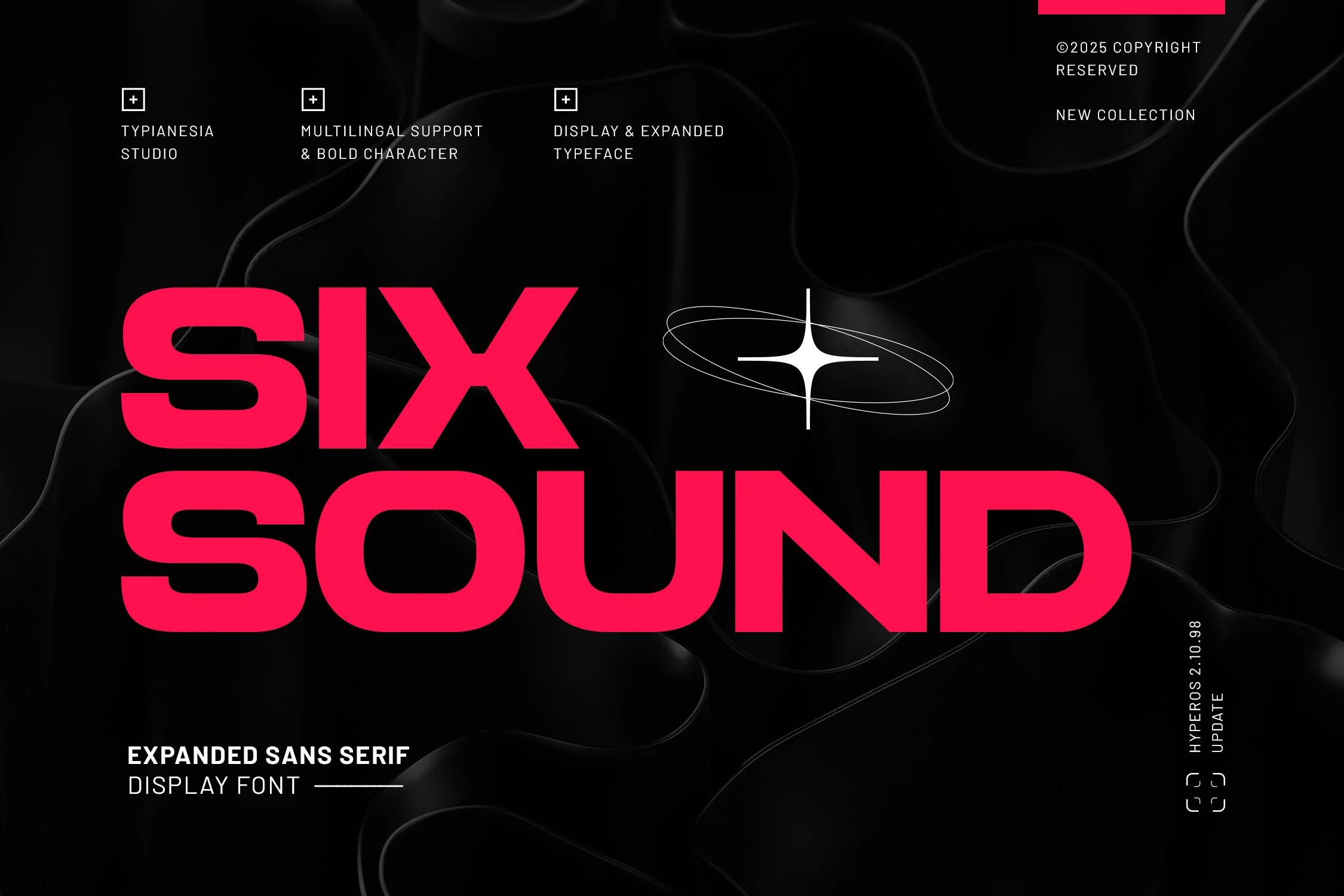
Six Sound Font is worth testing for logos, branding, and display text. Look for rounded letter shapes and geometric construction when comparing it with other options. Try it at both headline and label size to judge its clarity.
Surfume Font for logos
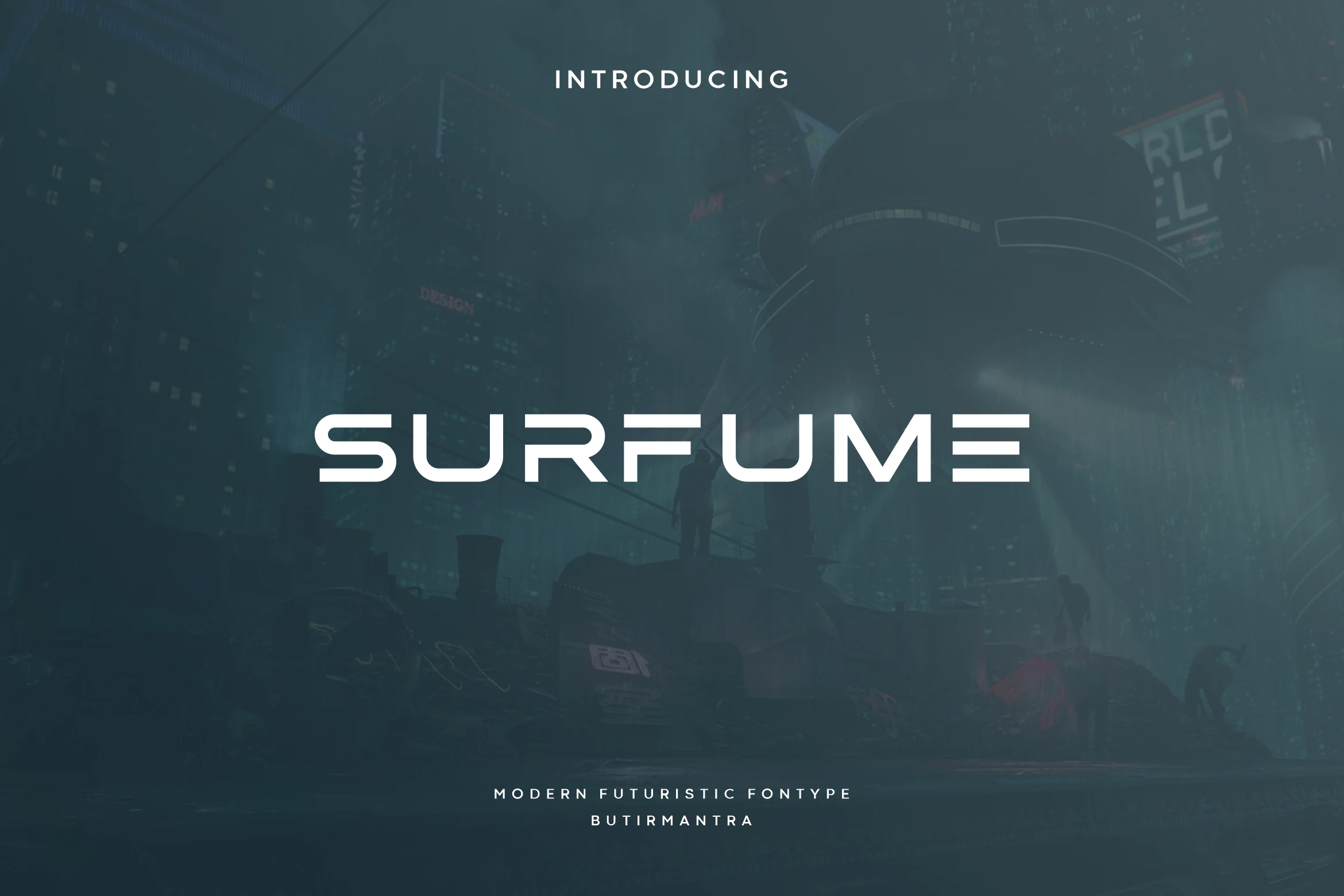
For logos, posters, and product labels, consider Surfume Font. Its design draws on geometric construction and serif details. Check whether repeated shapes make short words feel balanced.
Noffixa Font for branding
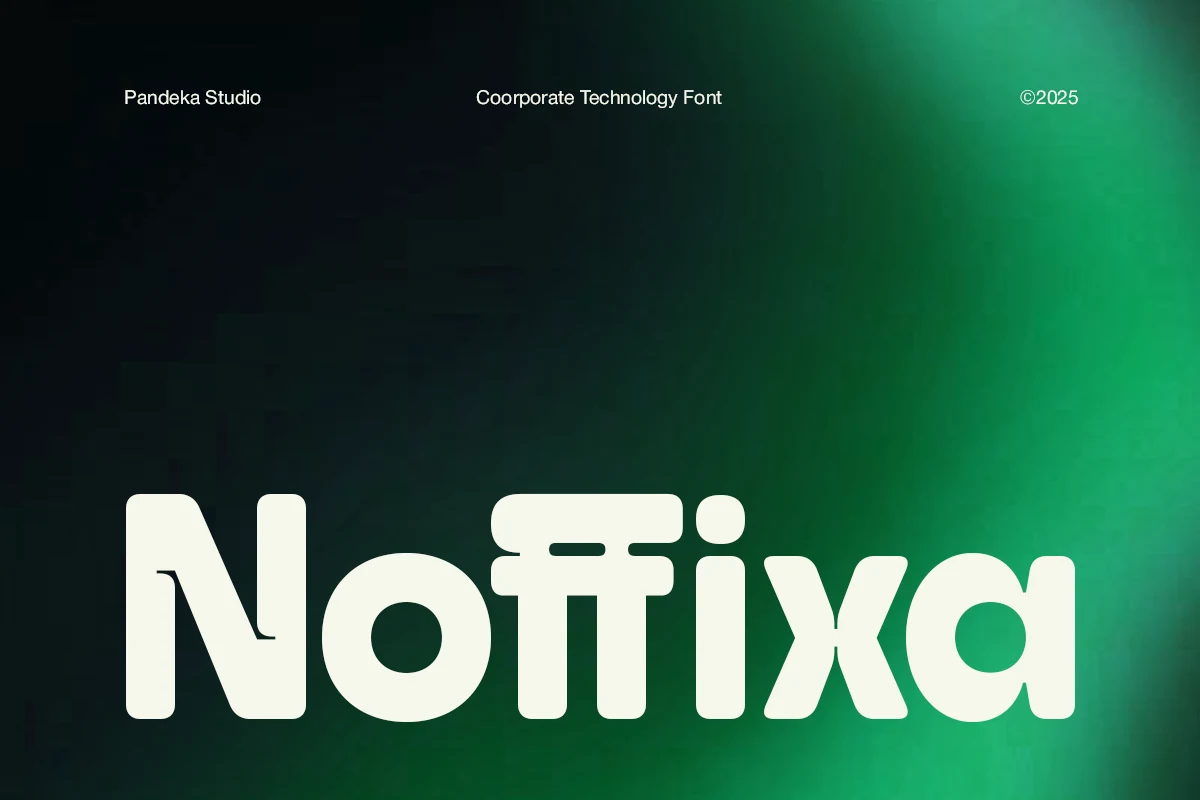
Noffixa Font can anchor branding, logos, and website headers. The main visual cues are rounded letter shapes and geometric construction. Try it at both headline and label size to judge its clarity.
Furion Font for logos
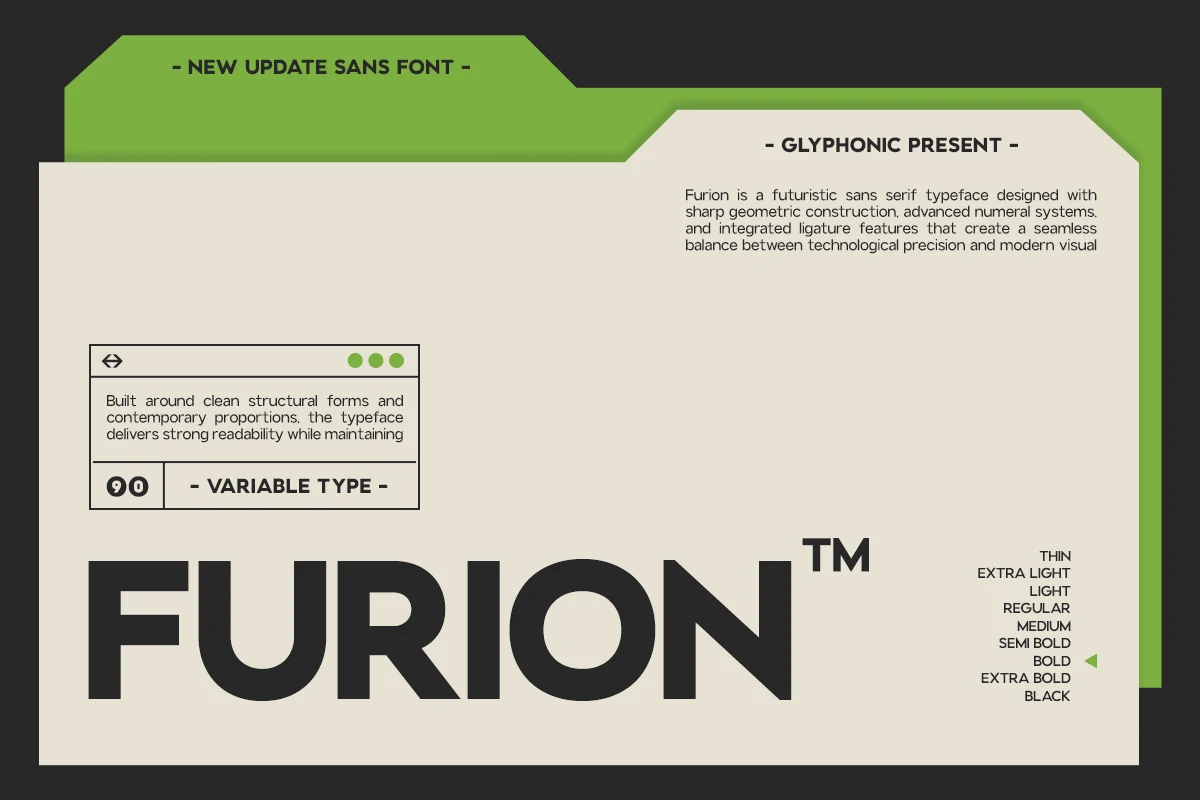
Furion Font is worth testing for logos, branding, and website headers. Look for geometric construction and serif details when comparing it with other options. Check whether repeated shapes make short words feel balanced.
Cenura Font for logos
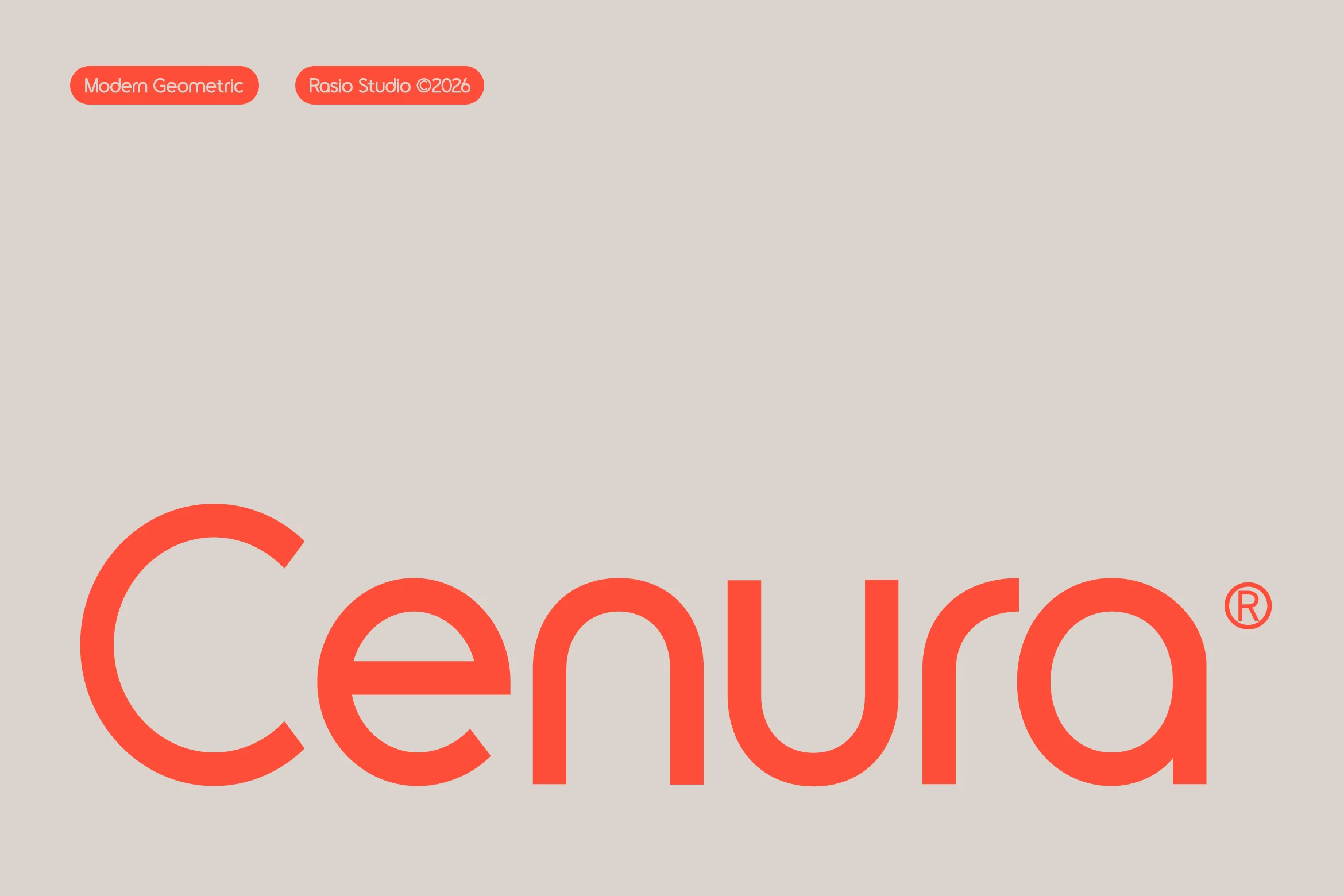
For logos, branding, and website headers, consider Cenura Font. Its design draws on an even, monoline stroke and rounded letter shapes. Test connected letters in the exact words you plan to use.
Ragonte Font for branding
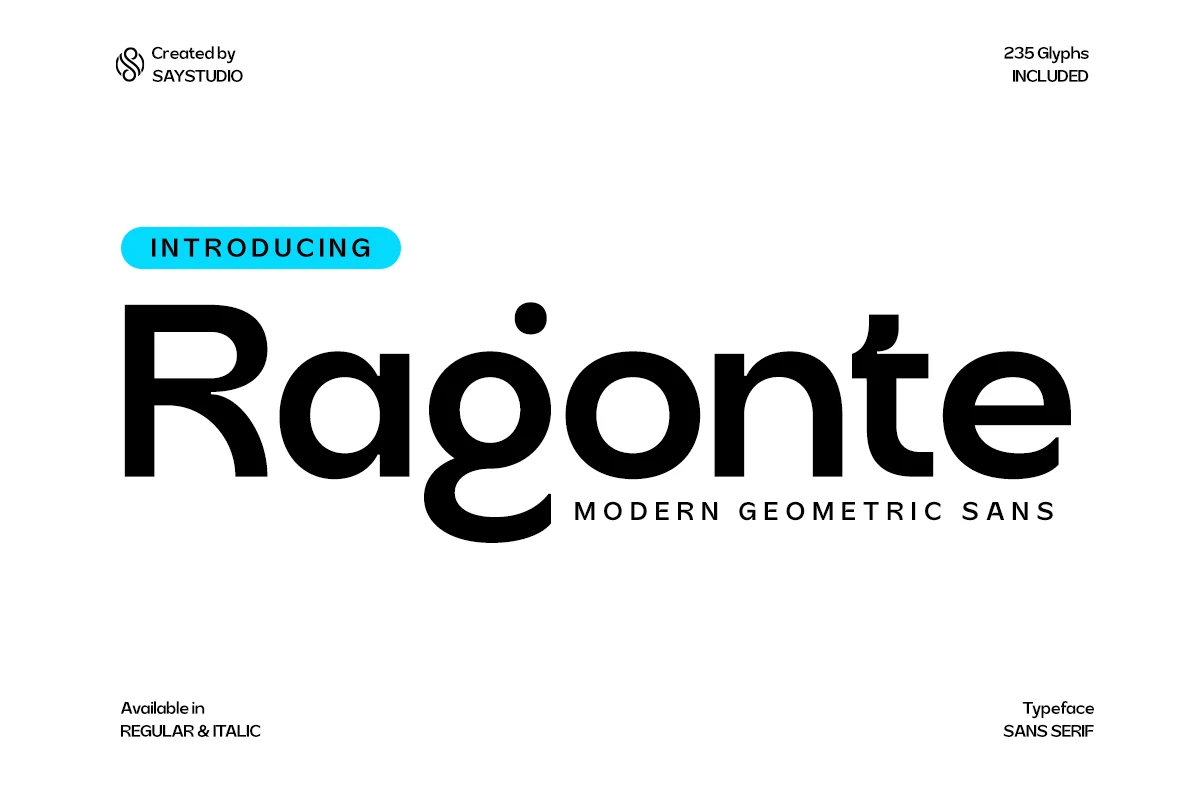
Ragonte Font can anchor branding, website headers, and display text. The main visual cues are geometric construction and display-focused letterforms. Check whether repeated shapes make short words feel balanced.
Konect – Futuristic Tech Sans Serif Font for logos
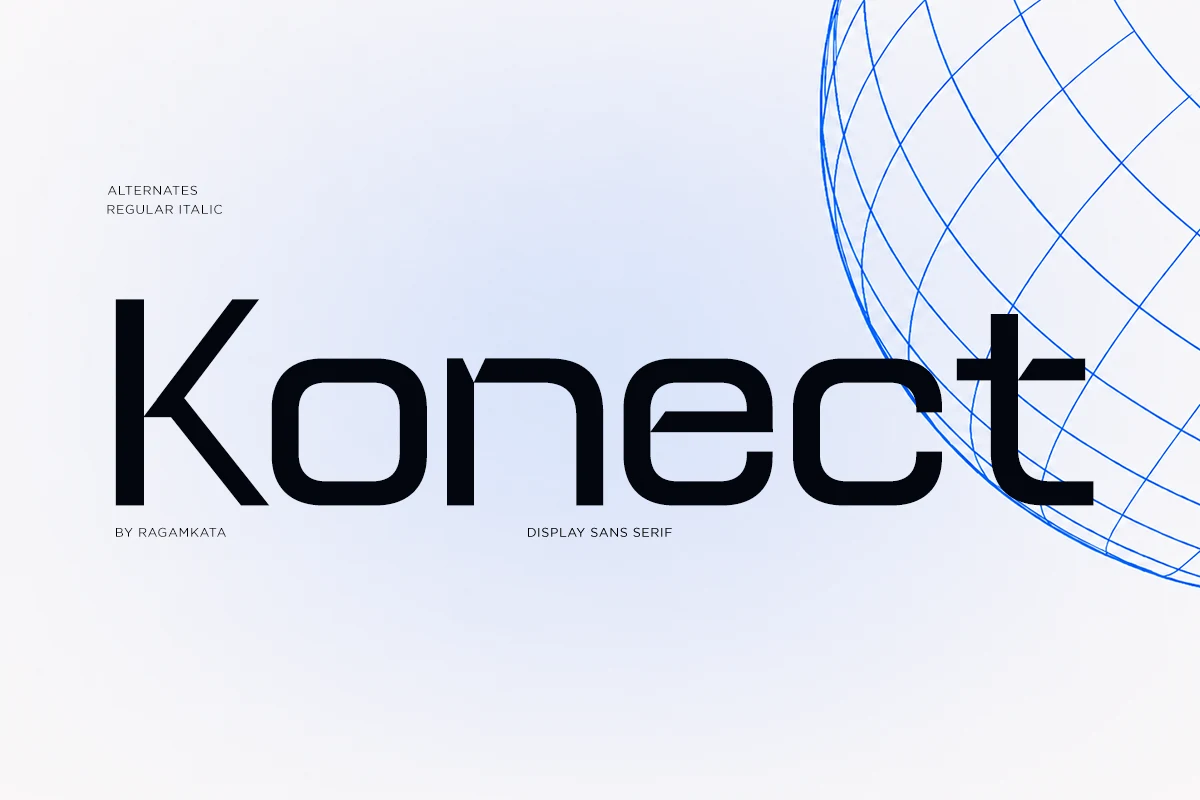
Konect – Futuristic Tech Sans Serif Font is worth testing for logos, branding, and website headers. Look for geometric construction and serif details when comparing it with other options. Check whether repeated shapes make short words feel balanced.
Montreal Font for branding
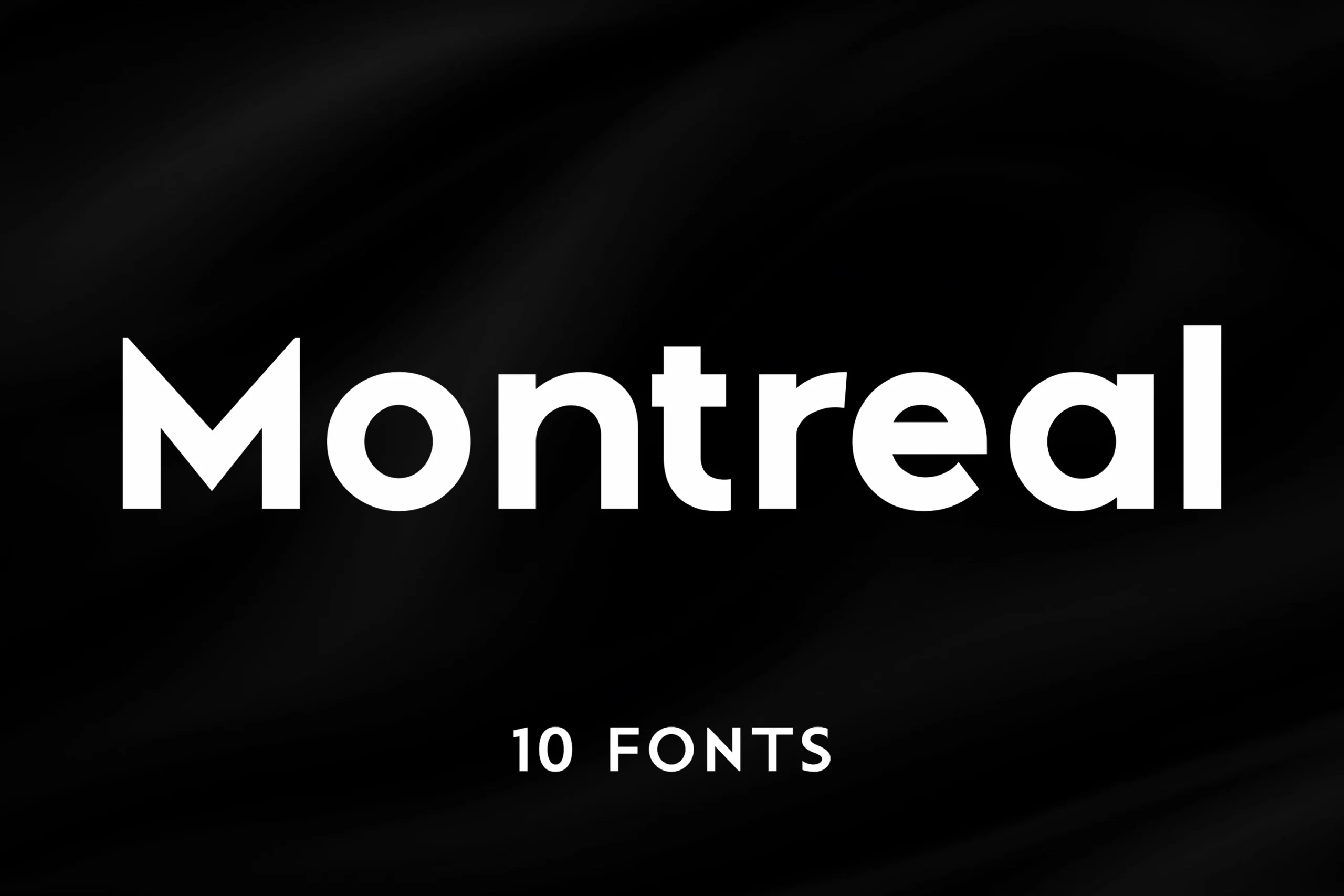
For branding, website headers, and clean designs, consider Montreal Font. Its design draws on geometric construction and serif details. Check whether repeated shapes make short words feel balanced.
Sogea Font for logos
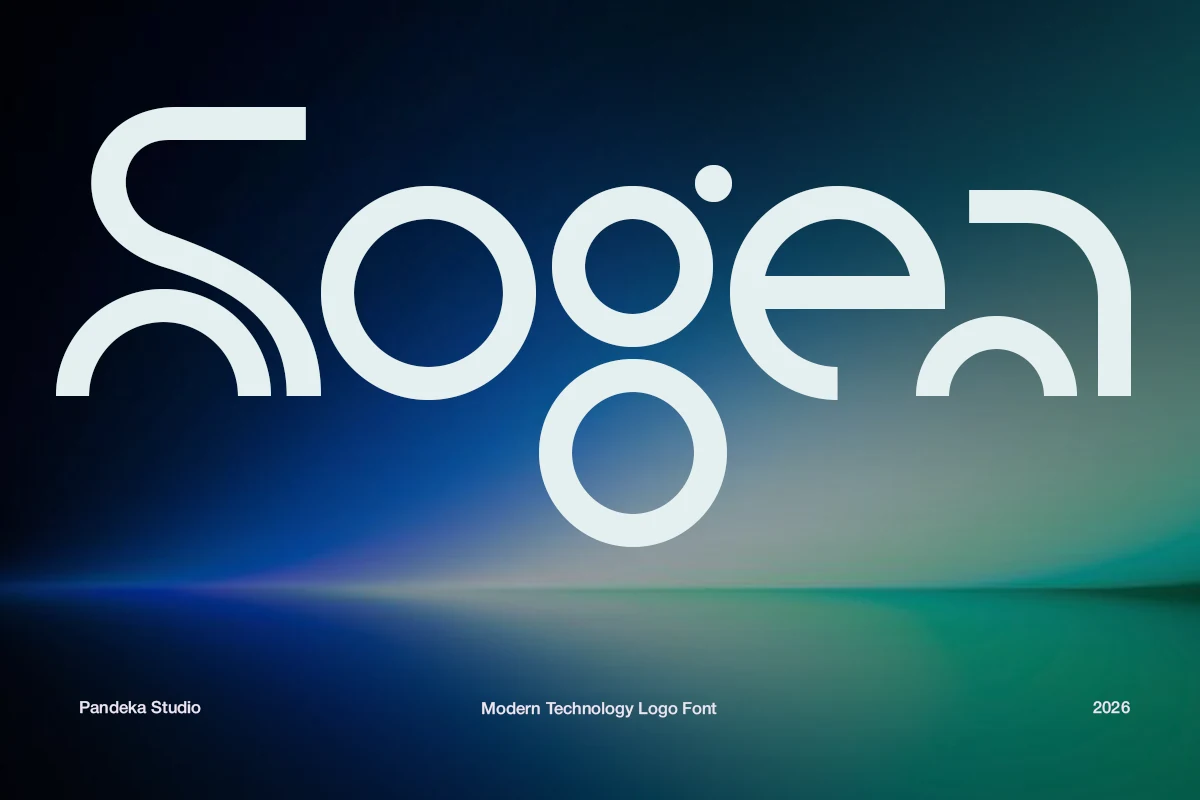
Sogea Font can anchor logos, branding, and headlines. The main visual cues are an even, monoline stroke and geometric construction. Test connected letters in the exact words you plan to use.
Final checks before using a font